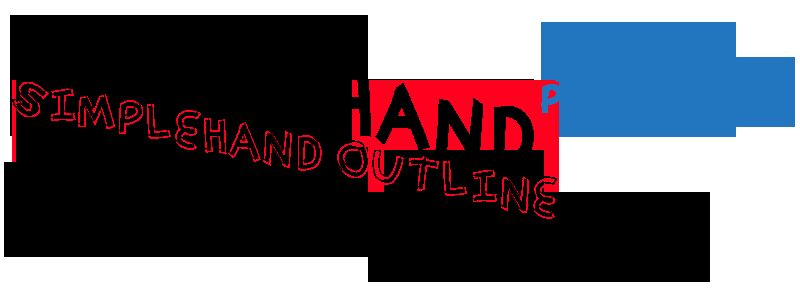
Simplehand by Andy Greer and Max Infeld of Xerographer.com is a free handwritten display font with broad, uneven strokes and a cut-paper silhouette. Its letters lean, swell, and narrow unpredictably, giving the line a lively handmade pace. Sharp corners and blunt joins keep the drawing raw.
Poster lettering is its clearest role, especially for independent music, comedy, or arts events. The irregular capitals can also shape album covers, T-shirt graphics, and youth-oriented packaging, where their oversized forms feel immediate and physical. Its rough theatrical edge is particularly suited to punk, garage rock, and offbeat performance projects.
SIMPLEHAND COMIC has two styles.